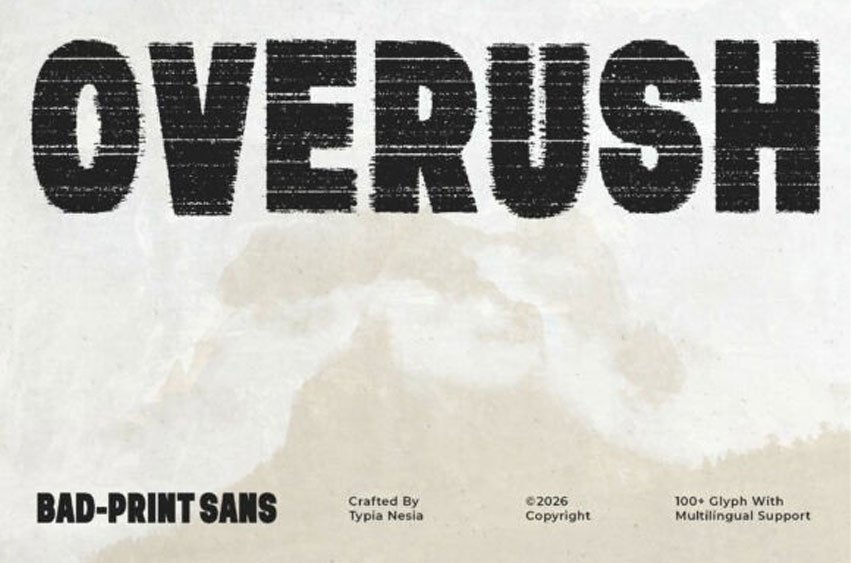
Overush Font Embrace the beauty of raw imperfection with Overrush, a heavy, bad-print display sans font. Capturing the authentic, rugged soul of a vintage photocopy machine running out of ink, or a heavily weathered woodblock print, this typeface features dense, horizontal distressing and textured, eroded edges.
Overrush is engineered entirely for gritty headlines, industrial imagery, and bold counter-culture layouts. It is an absolute powerhouse for streetwear lookbooks, underground music festival posters, skateboard brand logos, vintage packaging, and heavy editorial headers. This font is ready to bring an unapologetically raw, tactile texture straight to your digital project.